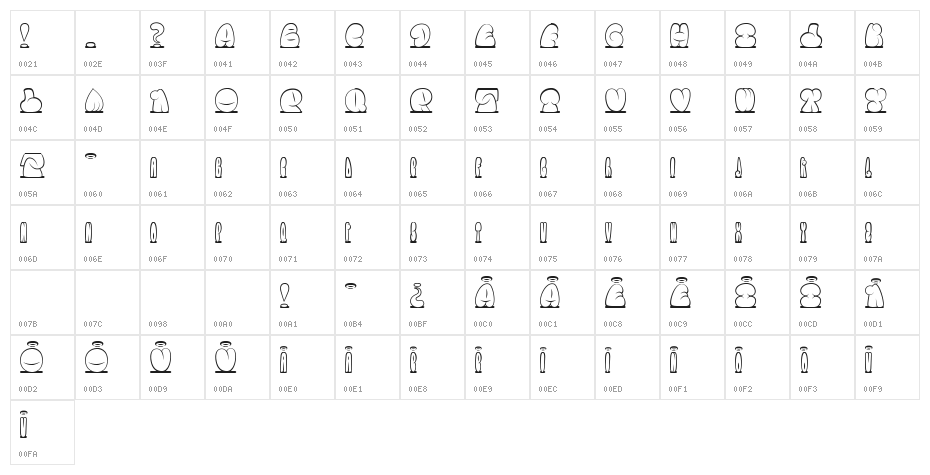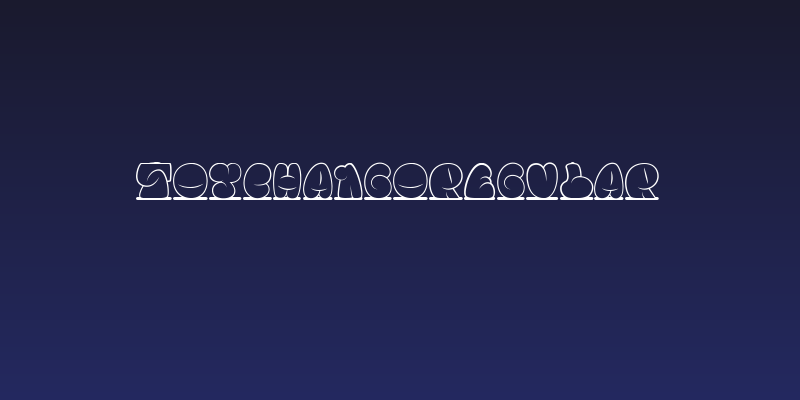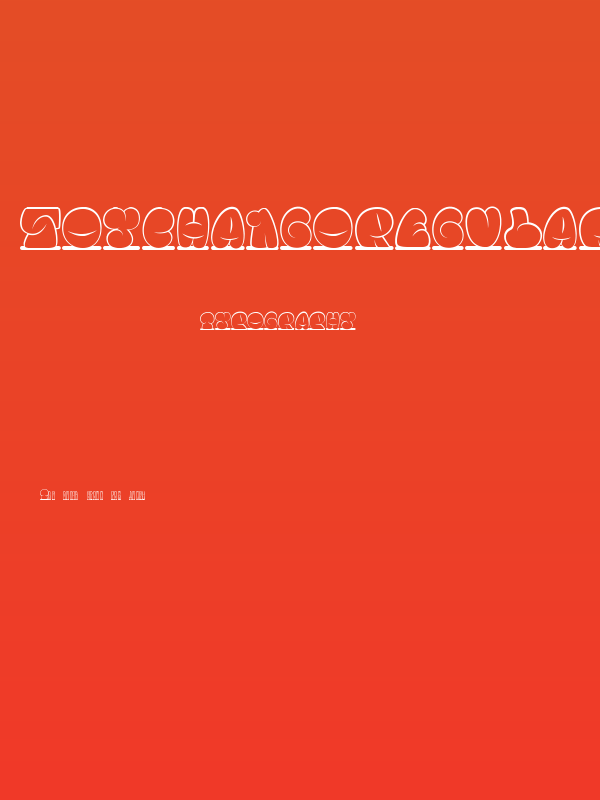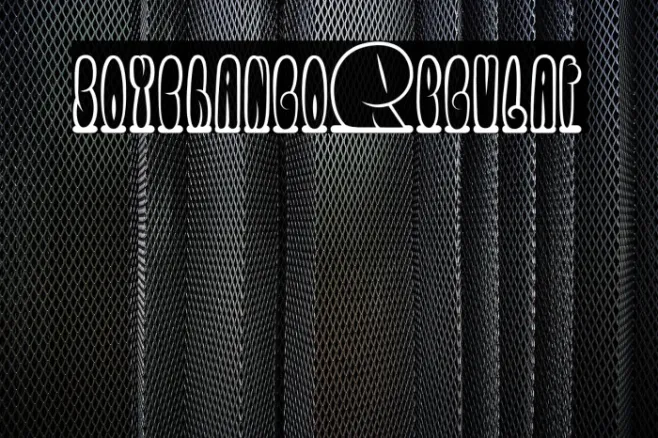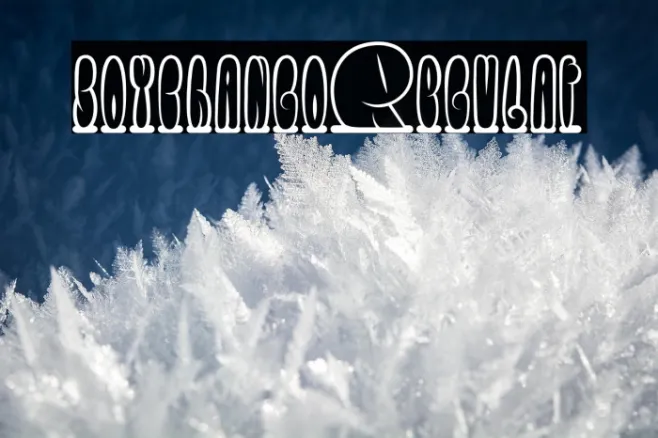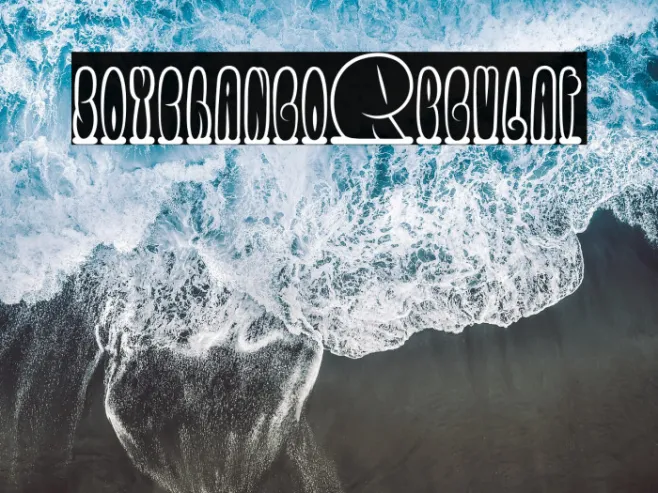
soychangoRegular Font
soychangoRegular Description
This font features a playful and whimsical design, characterized by its bulbous and rounded letterforms. Each character appears to be inflated, giving a three-dimensional effect that adds a sense of fun and creativity. The strokes are consistent in width, with a smooth and flowing appearance that enhances its decorative nature. The font includes both uppercase and lowercase letters, as well as numbers and a selection of special characters. Its unique style makes it stand out, ideal for projects that require a touch of humor and lightheartedness.
| Proposed Projects | Ideal for children's books, playful branding, party invitations, and creative posters. |